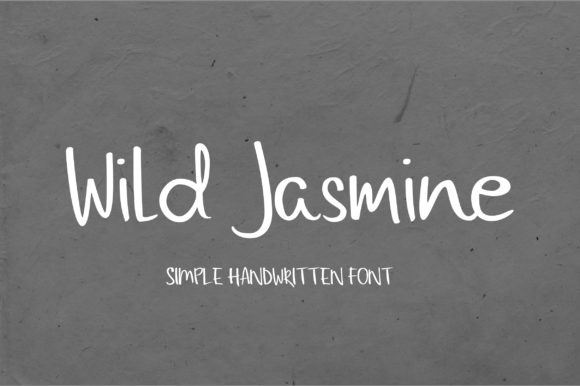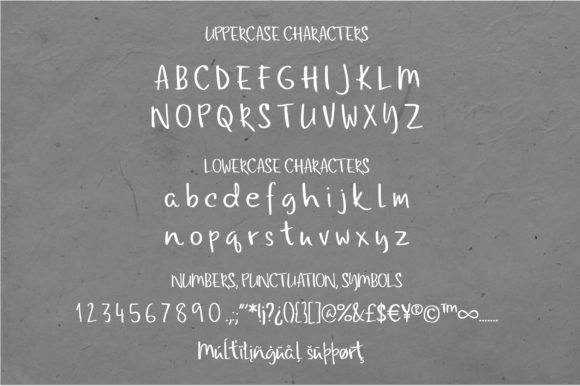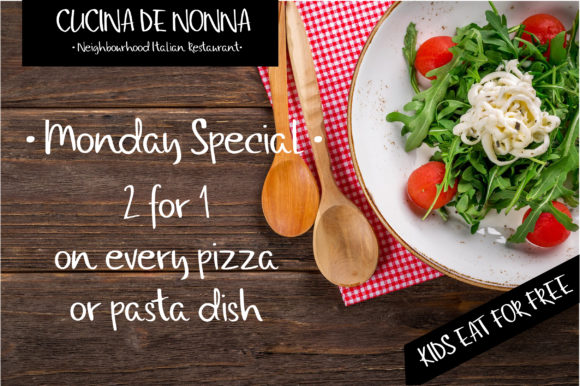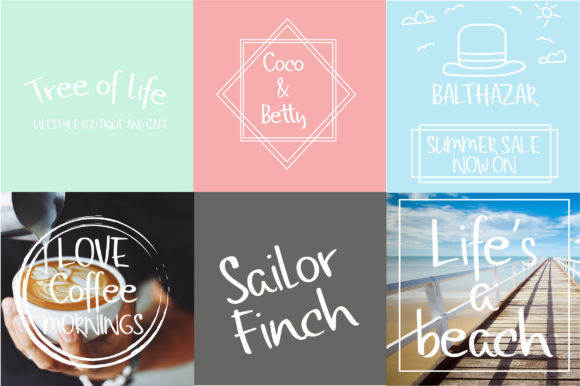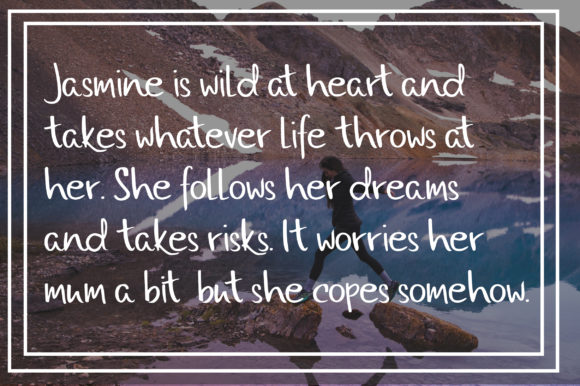
Wild Jasmine Font
About Wild Jasmine Font
The Wild Jasmine is a simple handwritten font that can be used in a variety of products. It includes clean letters and a great readability.